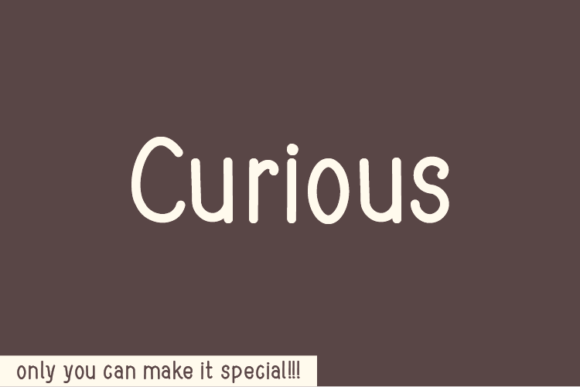
Prepare yourself to be captivated by the enchanting world of Curious Font, a script font family that will make your designs dance with elegance. Step into a realm where handwritten beauty meets digital precision, creating a symphony of visual intrigue.
Crafted by the talented Hanna Bie, Curious Font is not just a collection of letters; it's an expression of artistry. Its natural flow and unwavering individuality stem from the font's unique creation process, where every indentation remains untouched. This meticulous attention to detail results in a font that is as authentic as it is captivating.
With Curious Font, you can effortlessly transform your designs into masterpieces. Its graceful curves and whimsical charm add a touch of magic to quotes, notes, tees, and any product design you can imagine. Let your creativity soar as you explore the endless possibilities of this extraordinary font.
But Curious Font is more than just a design tool; it's an emotional journey. Its enchanting aura invites you to connect with your inner child, to embrace the joy and wonder of the world around you. Let Curious Font carry your messages with a touch of charm, a hint of nostalgia, and a dash of playful delight.
Join the curious and let your designs bloom with the captivating beauty of Curious Font. Embrace the uniqueness that lies within and unleash your imagination. The possibilities are endless, and the journey is just beginning.